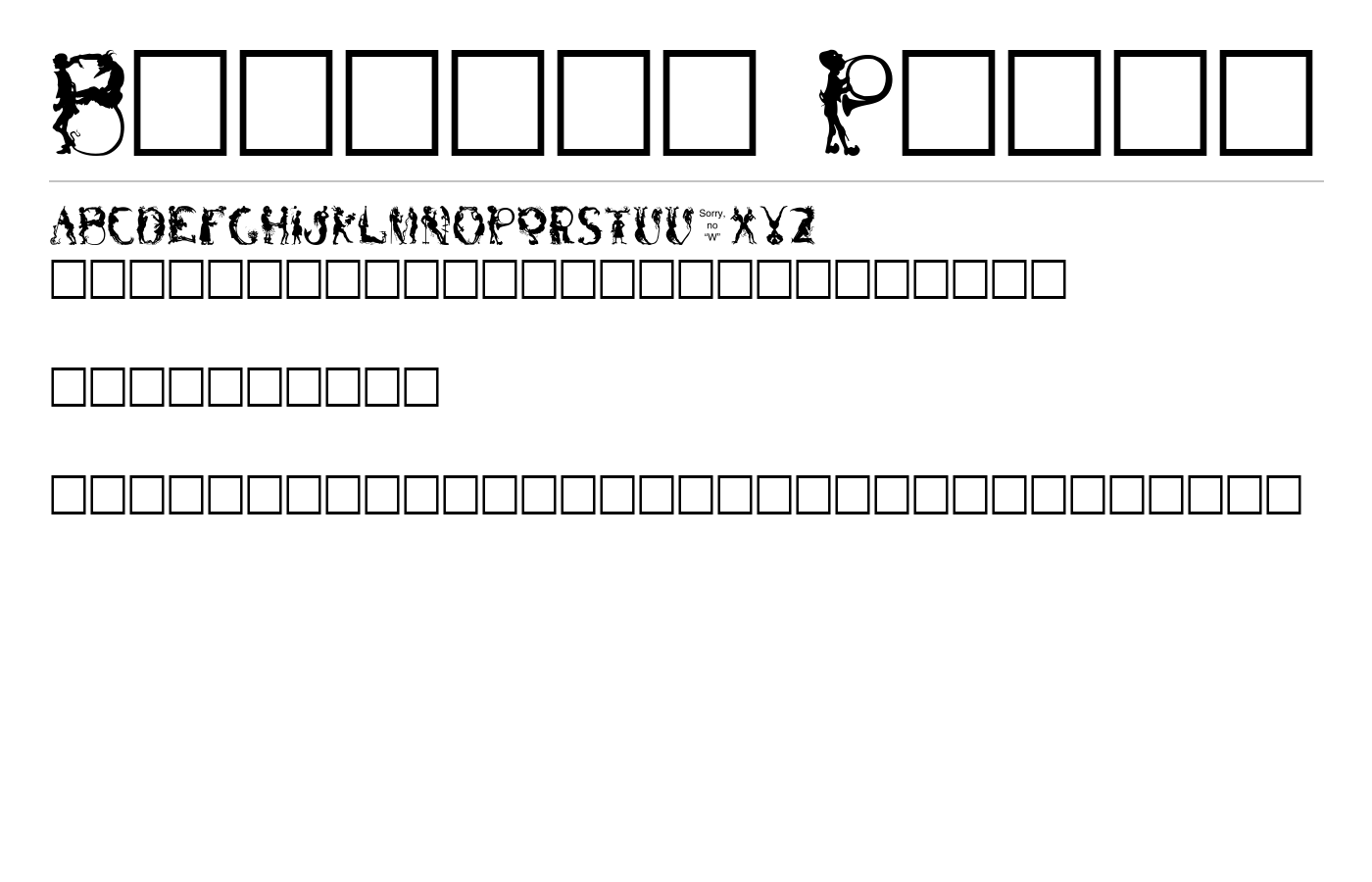
Bizarro Plain is a decorative, serif-inspired display font with a chaotic, textured appearance that blends irregular shapes and organic flourishes within each letter. Its bold, artistic style evokes a spooky or gothic vibe, making it perfect for eye-catching headlines, posters, or themed branding where a dramatic and unconventional look is desired. This font shines in creative projects that want to convey mystery, fantasy, or an otherworldly feel.
Bizarro Plain Font